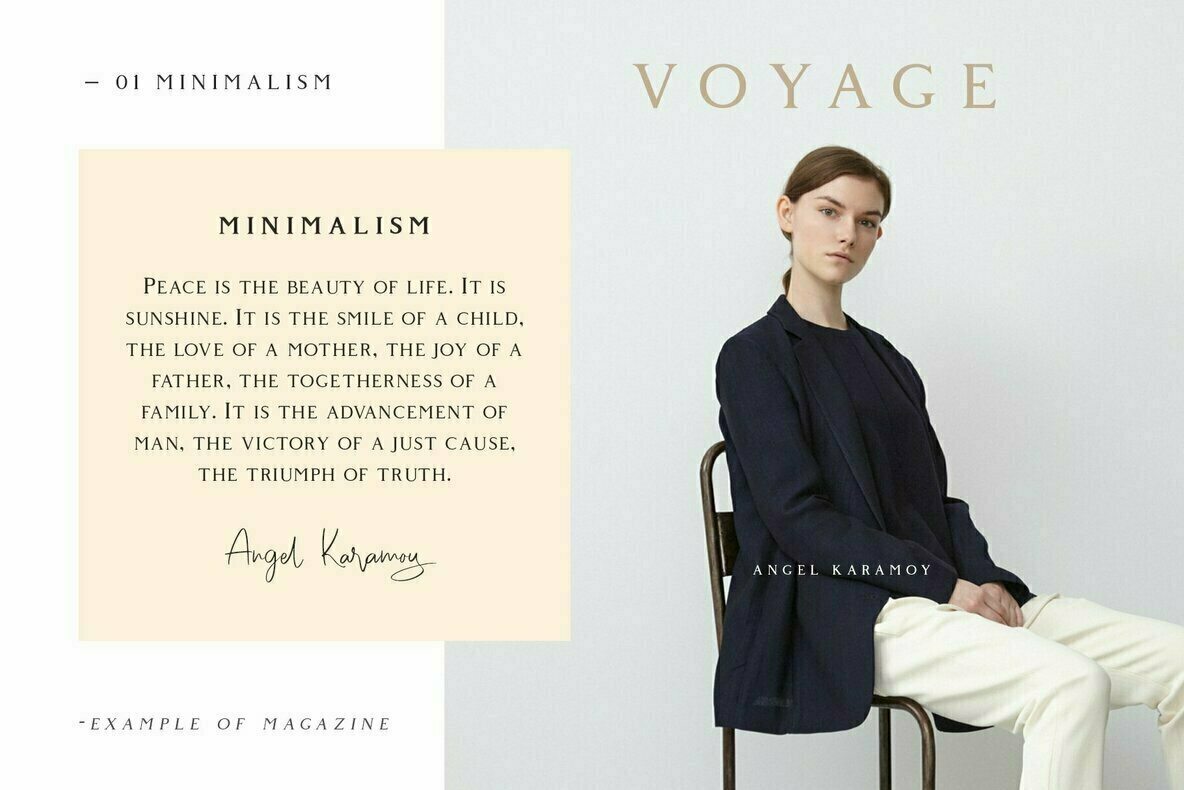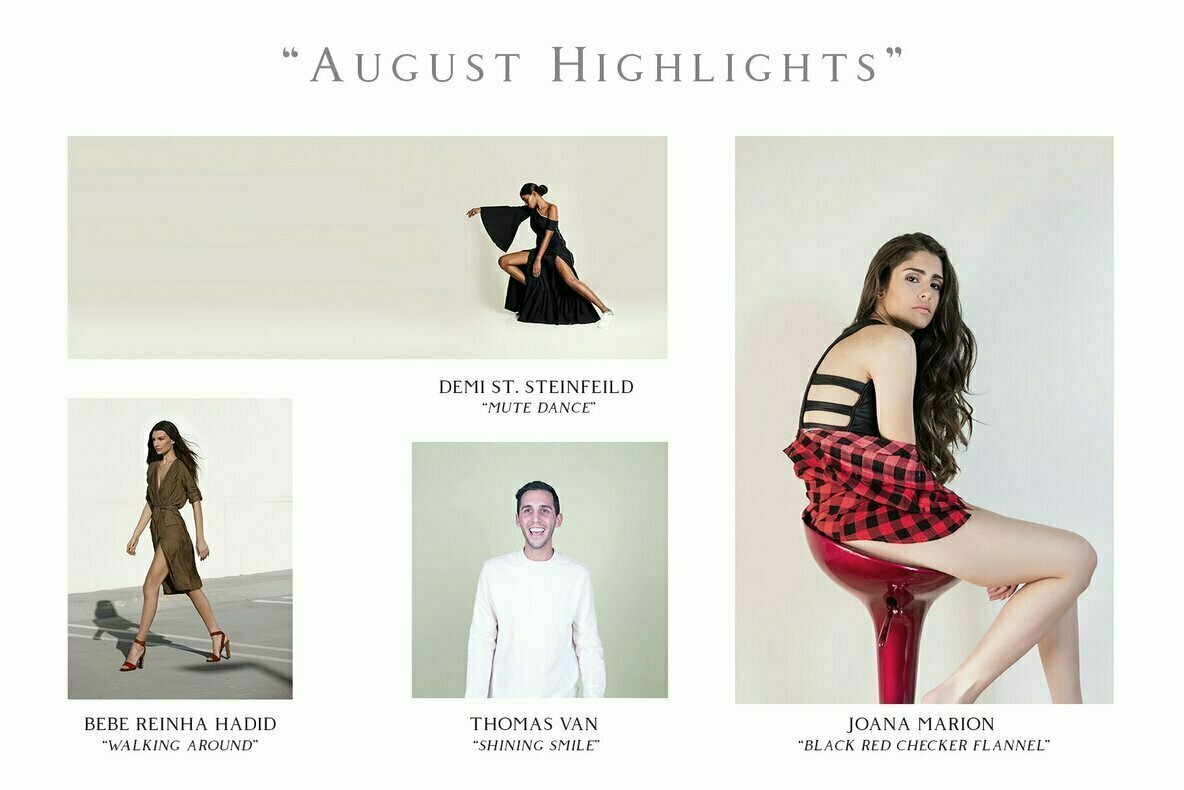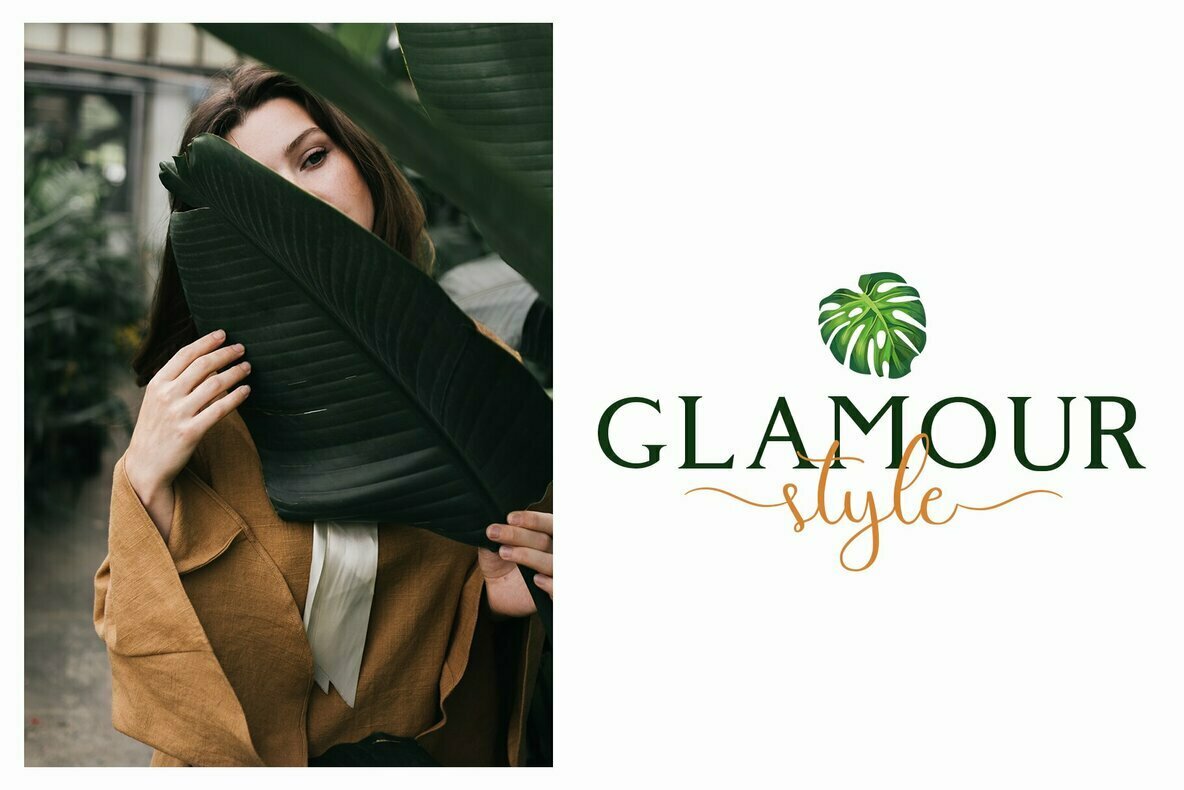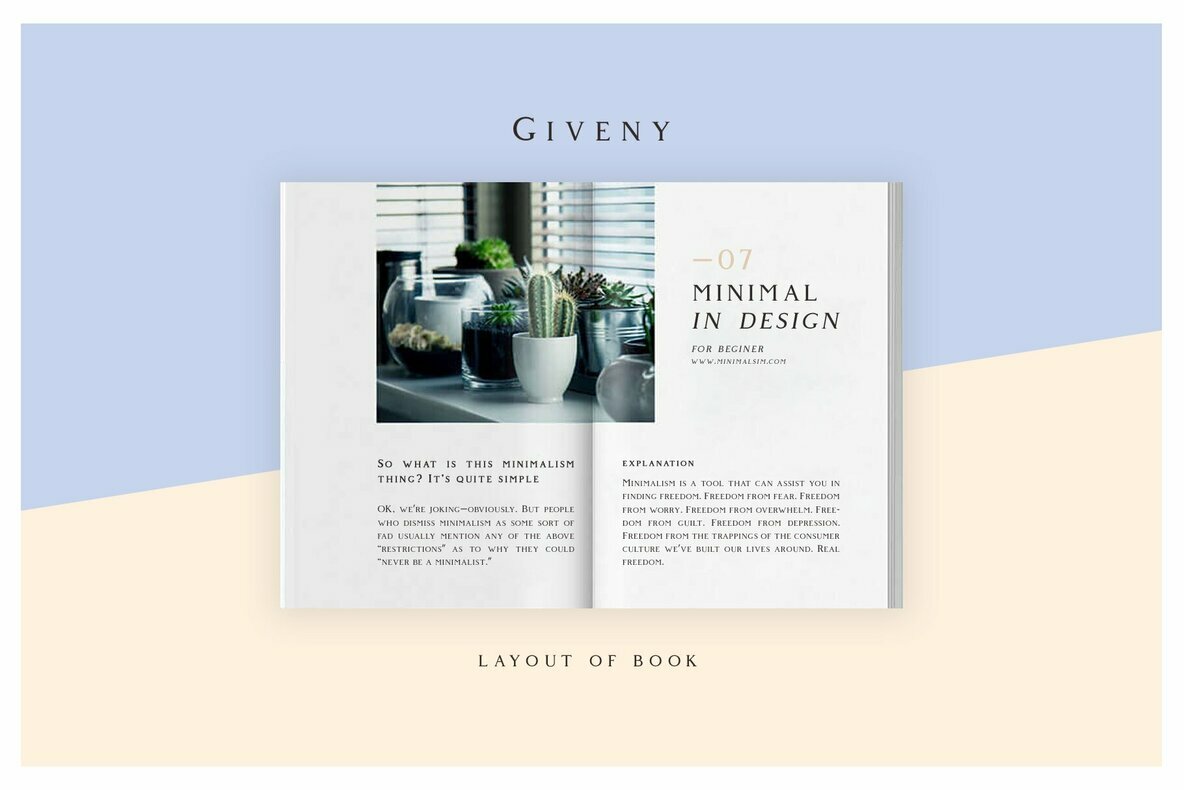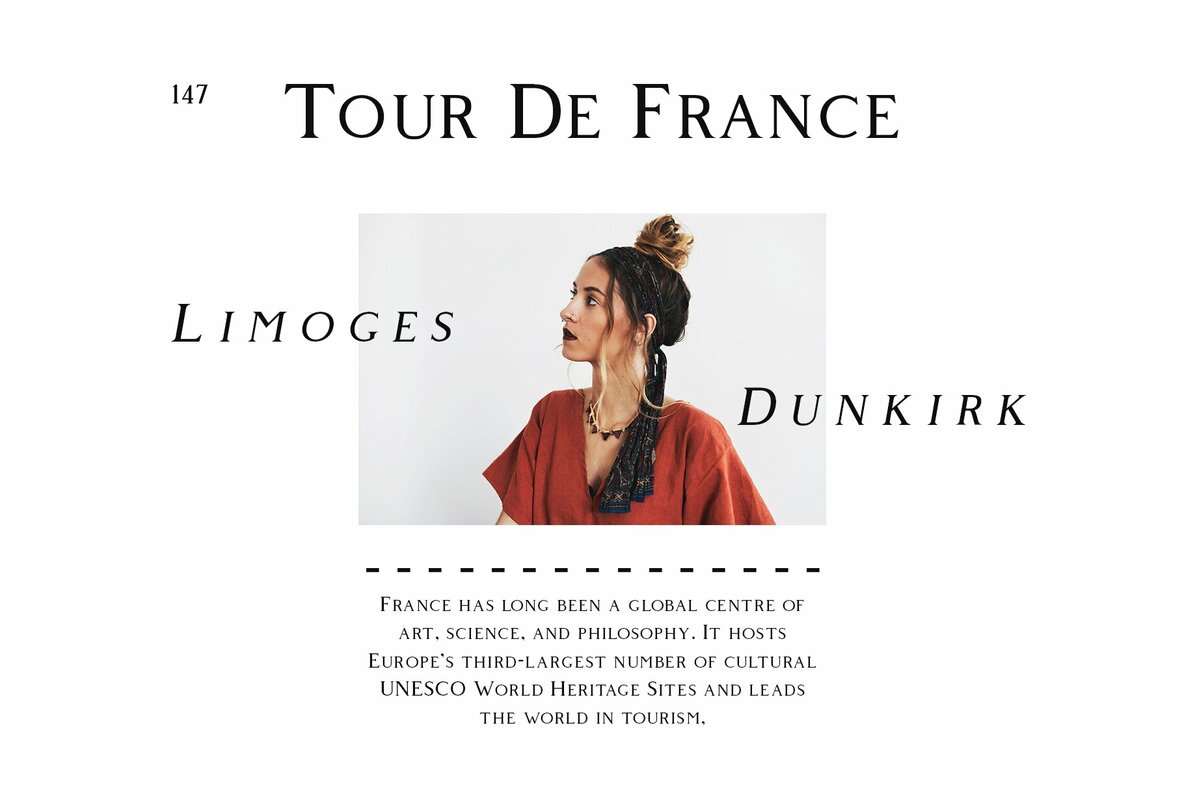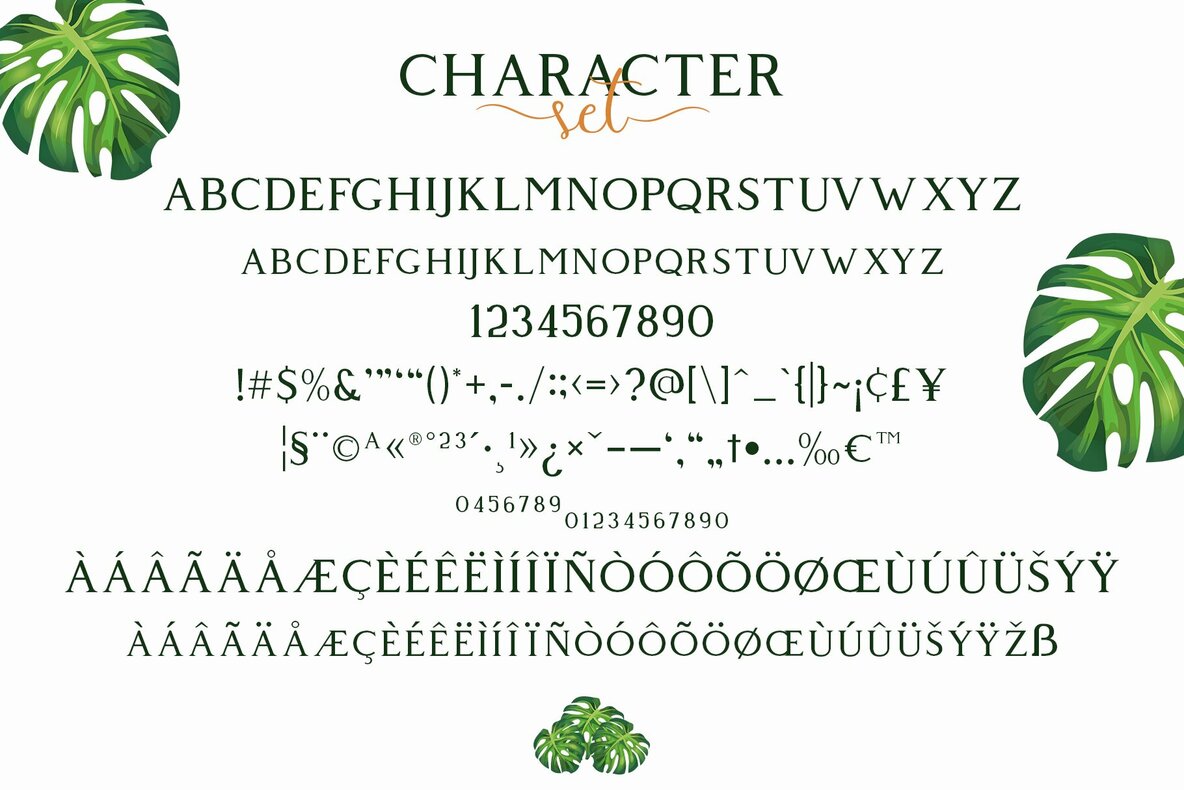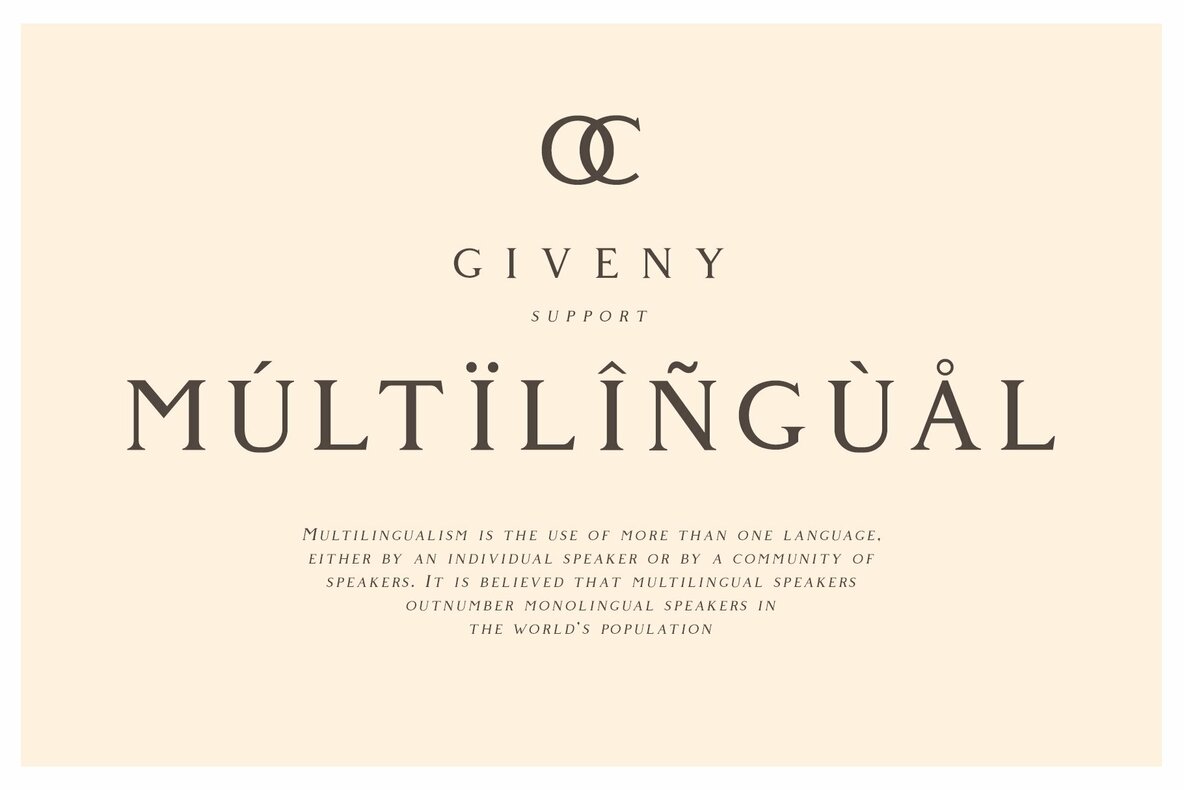
Giveny Font
Giveny - Classy Serif Font is a Classy serif font whose design refers us to the style of transitional serifs. The distinctive features of Giveny - Classy Serif Font are the relatively low contrast of strokes, the slightly squarish shapes of round characters and the emphasized businesslike nature.
Giveny - Classy Serif Font has been crafted from scratch with a structural logic of its own: a fusion of pure geometry and optical balance. By combining a variety of styles Giveny - Classy Serif Font is suitable for Logo, greeting cards, quotes, posters, branding, name card, stationary, design title, blog header, art quote, typography
Giveny - Classy Serif Font also suitable for art, Classy envelope lettering or book design, happening style like handdrawn design or watercolor design theme, craft design, any DIY project, book title, wedding font, pop vintage design, or any purpose to make our art/design project look pretty and trendy.
Upper Case & Lowercase
Stylistic Alternates
Standard Ligatures
Numerals & Punctuations (OpenType Standard)
Accents (Multilingual characters) (AÀÁÂÃÄÅCÇDÐEÈÉÊËIÌÍÎÏNÑOØÒÓÔÕÖUÙÜÚÛWYÝŸỲŸÆŒß)